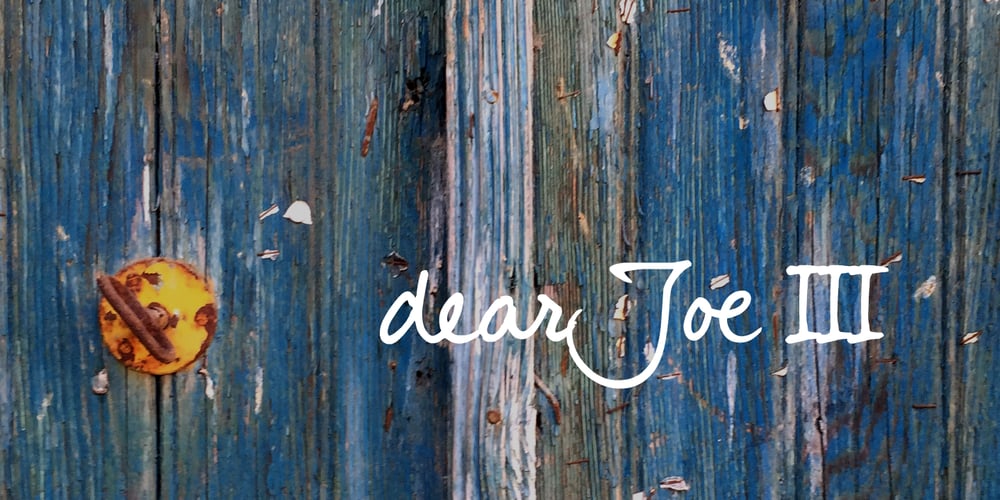
DearJoe 3
DearJoe 3 font
DearJoe 3 Font Family was designed by Jeroen “Joebob” van der Ham and published by JOEBOB graphics. DearJoe 3 contains 1 styles and family package options. Finally it’s done! The DearJoe 3 ‘Ultimate handwriting’ font, composed of scanned handwriting which makes it look quite convincingly real. It contains over 500 characters, 200 of them ligatures. Typing your text with this font feels like old-school writing with a pen, especially since every word will be constructed of different letter combinations. Give it a try and you’ll probably be surprised…